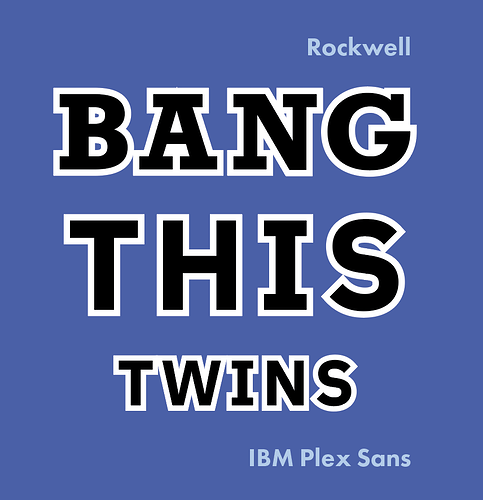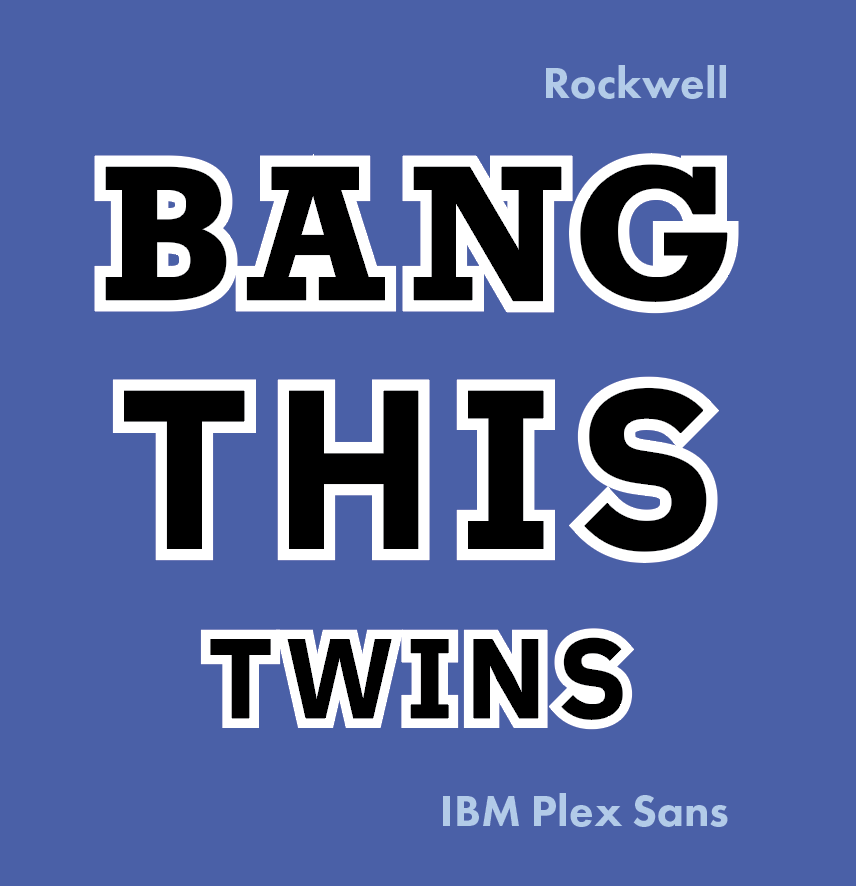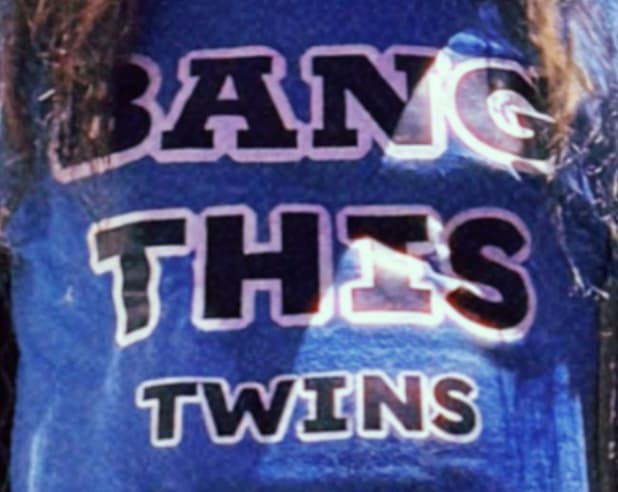
Was thinking it could be Verdana with the ‘I’ being serif like that - but the tricky thing is the ‘A’ and ‘N’ being serif. And it’s a little wider and thicker.
I think they are Rockwell and IBM Plex Sans: